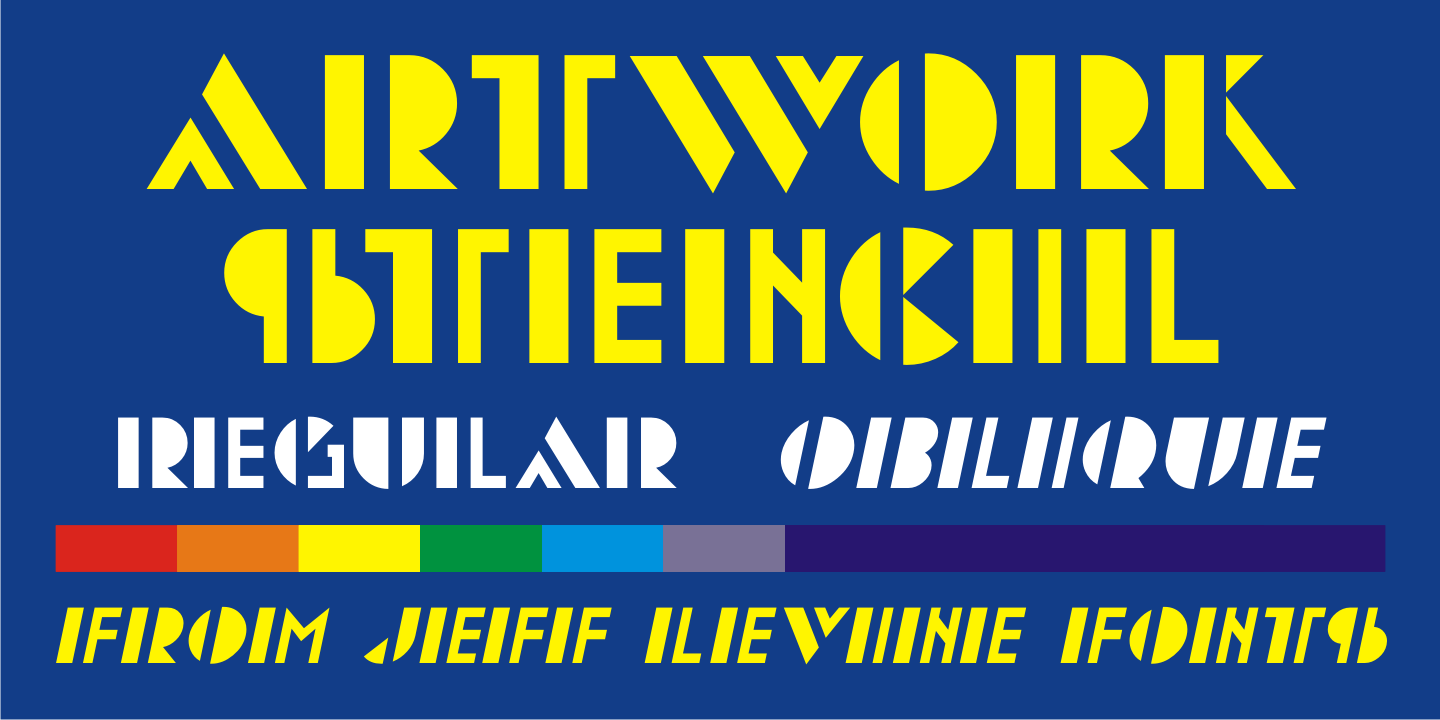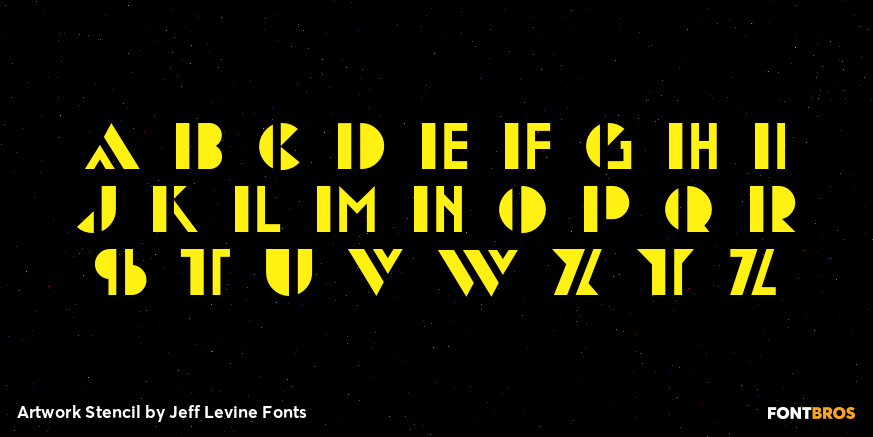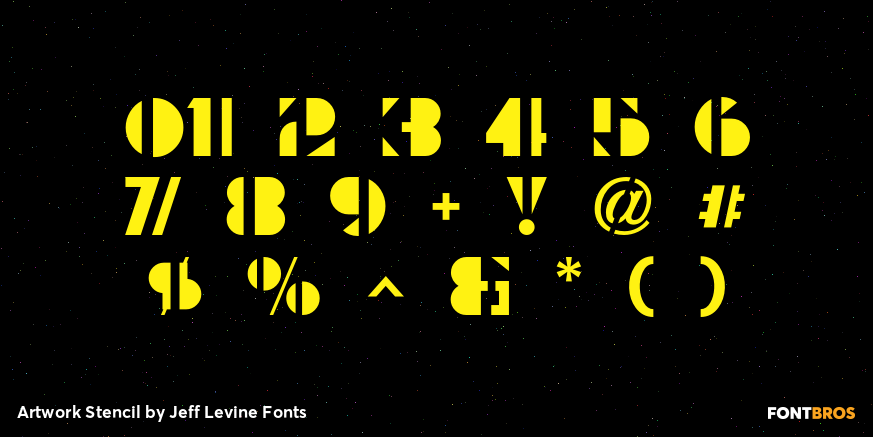
Artwork Stencil
Many great lettering examples were found in the 1939 French publication by Georges Léculier, "Modèles de Lettres Moderns" ("Models of Modern Letters"). One design in particular is a stencil alphabet so typical of the Art Deco movement of the 1930s.
Artwork Stencil JNL is now available digitally in both regular and oblique versions.